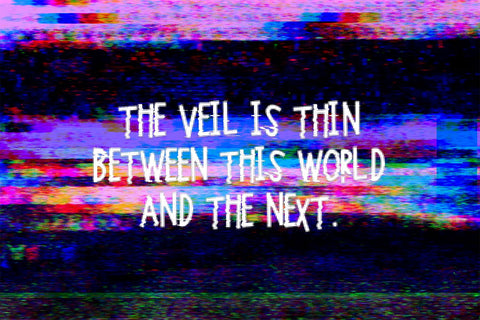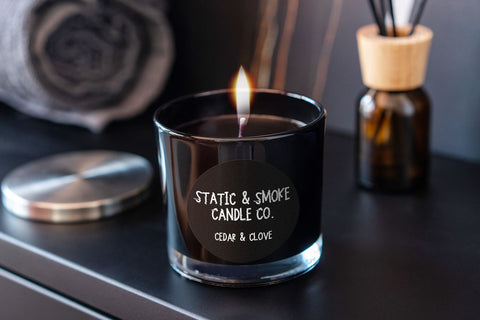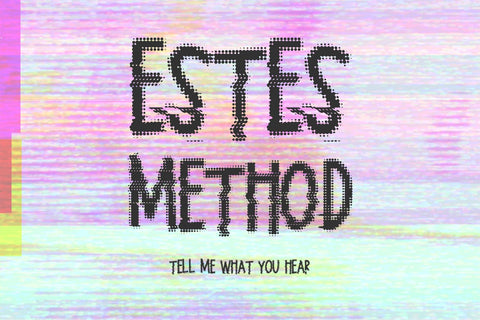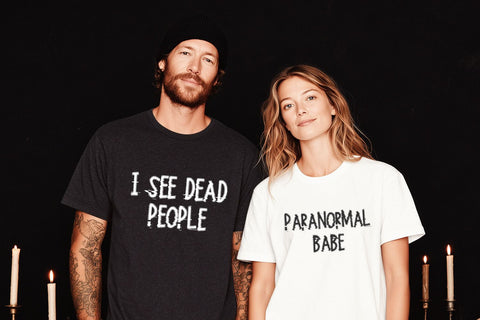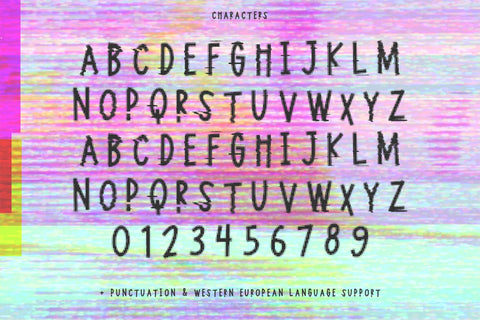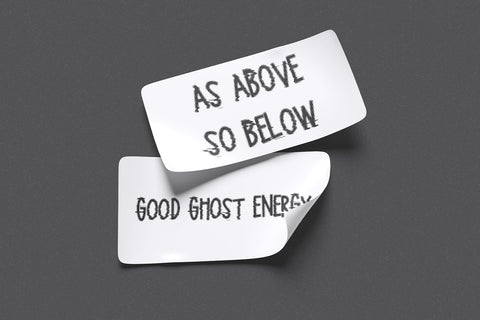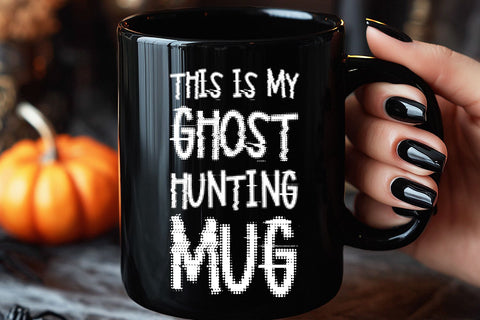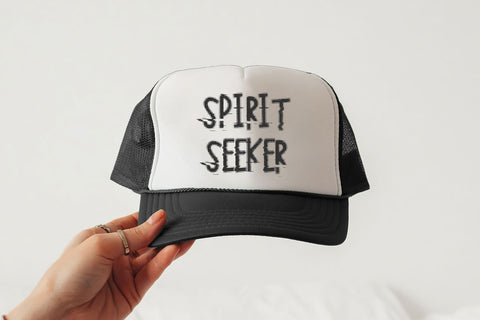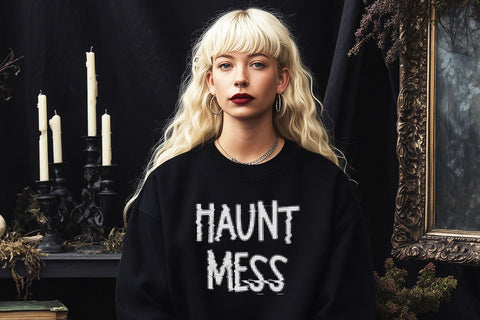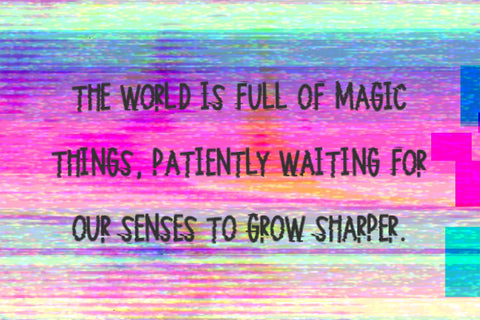
Estes Method Display Font
Tell me you listen to creepy ghost story podcasts without telling me you listen to creepy ghost story podcasts. Estes Method is a heavily textured font (NO VINYL, Y’ALL, print & cut only) inspired by ghost hunting, and spirit communication through electronic devices. The lettering is incredibly distressed and has a garbled, jacked up analog quality. Think paranormal investigations, ghost hunters, and all things occult. Use for ghost-themed designs, horror posters, branding, and more.
- full upper + lowercase characters - same characters programmed into each slot
- numbers + punctuation
- Western European language support - English, French, Spanish, Portuguese (Brazil), Portuguese (Portugal), Italian, German (Germany), German (Austria), Dutch, Danish, Swedish, Norwegian (Bokmål and Nynorsk), Finnish, Icelandic, Irish, Welsh